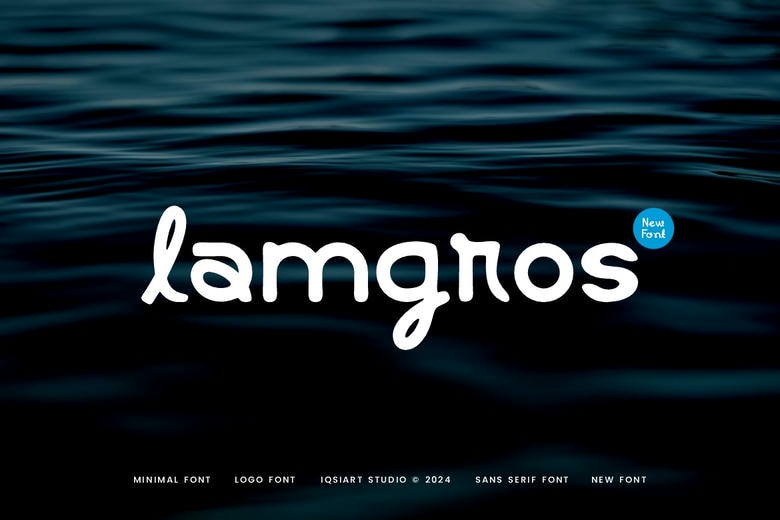
Lamgros Font
Lamgros refers to an uncomplicated font that is handwritten with thin stroke weights. It has a very basic structure and layout which already makes it looks classy and laid back, therefore is perfect for the expressional kind of projects.
Lamgros Sans Serif Font